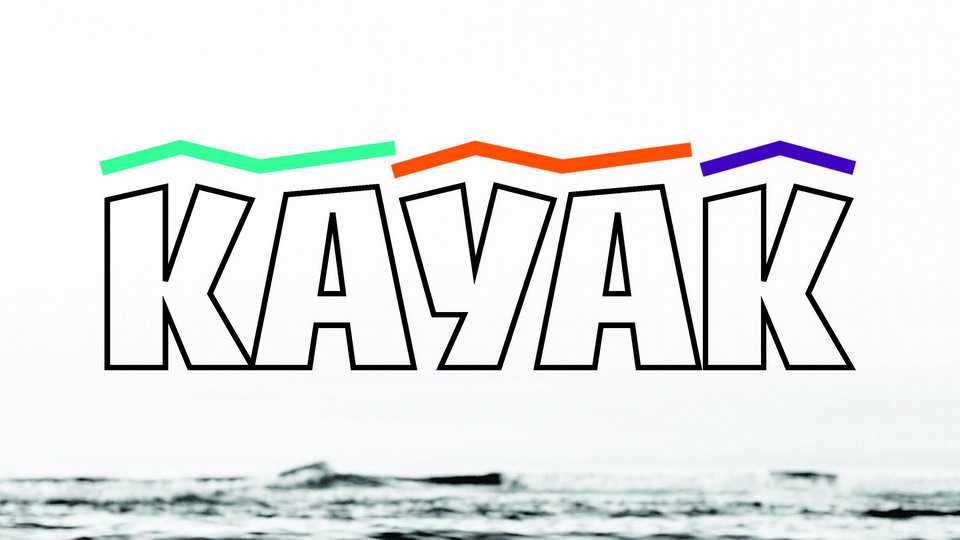
Download Kayak font family, a dynamic, caps-only display typeface with a strong impact. Kayak expands on two axes, alternating from a light condensed weight to a solid black expanded one, giving a range of versatile variations.
Designer: George Triantafyllakos